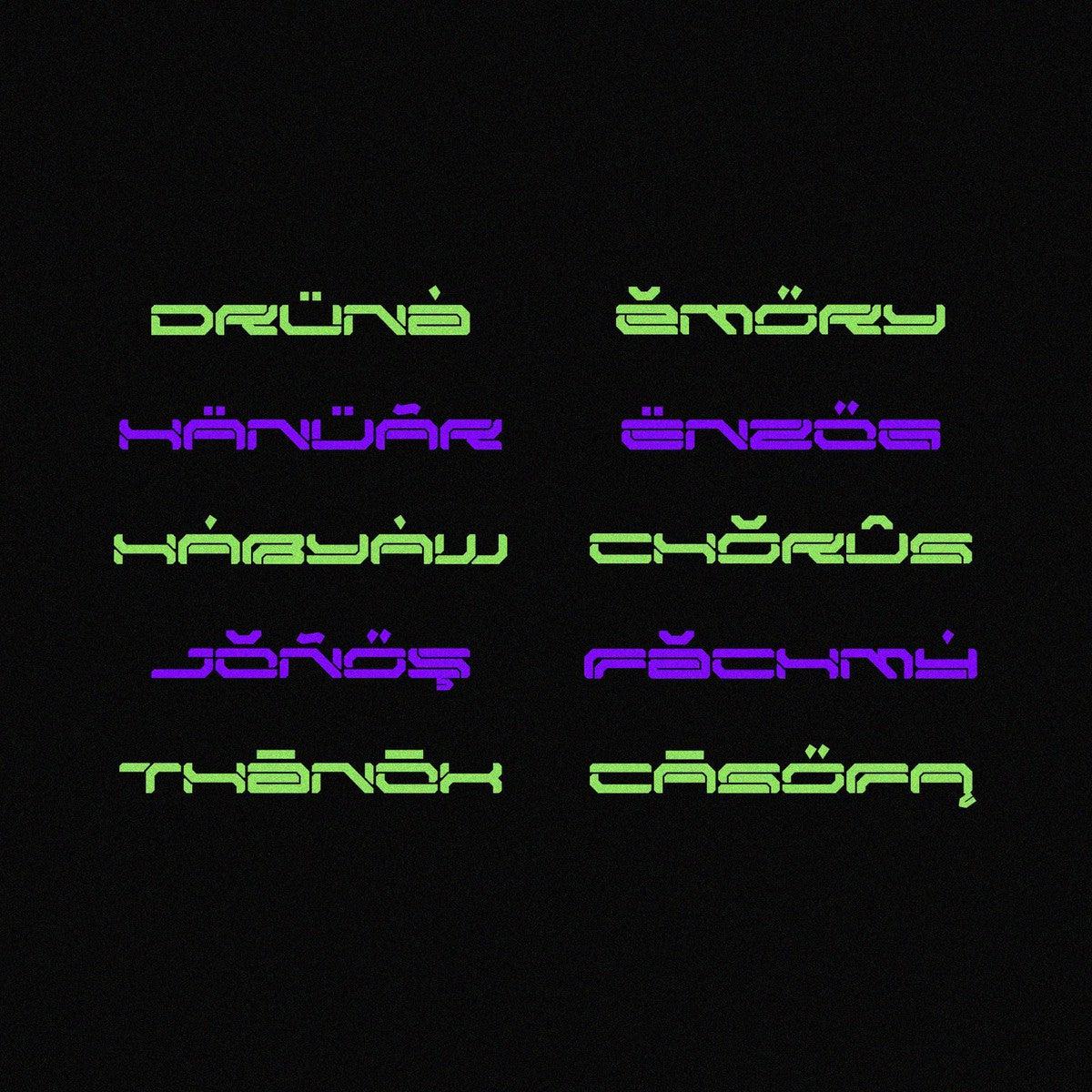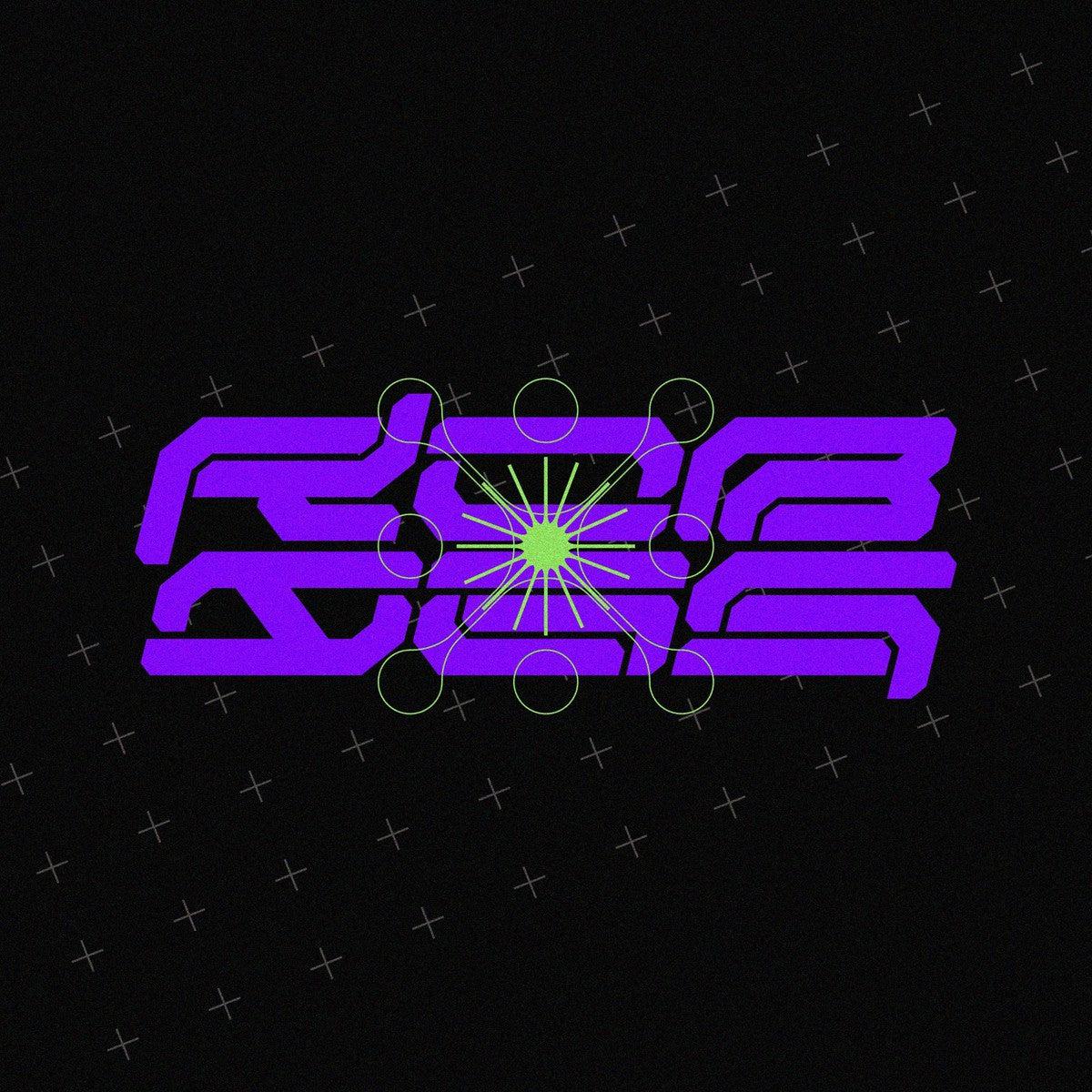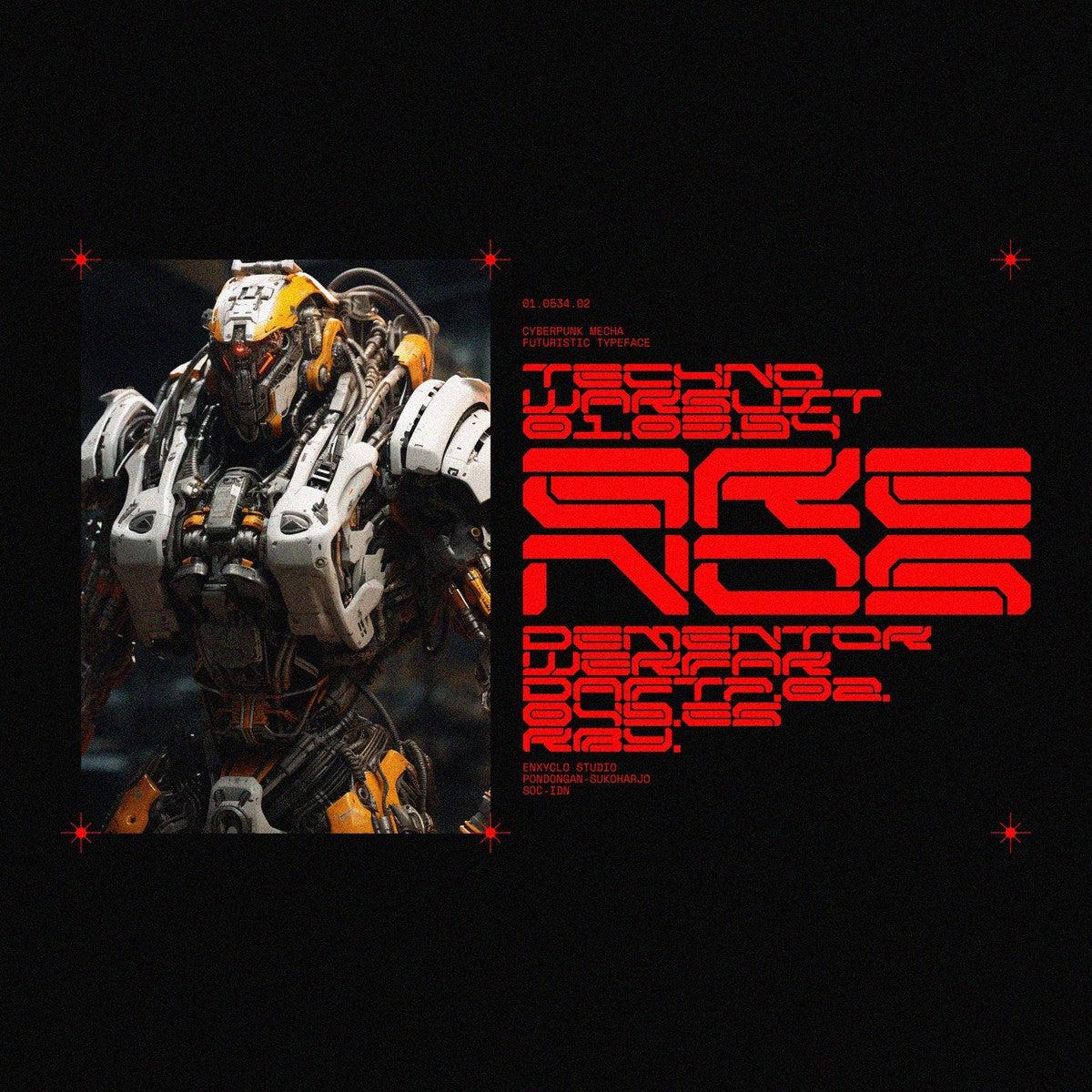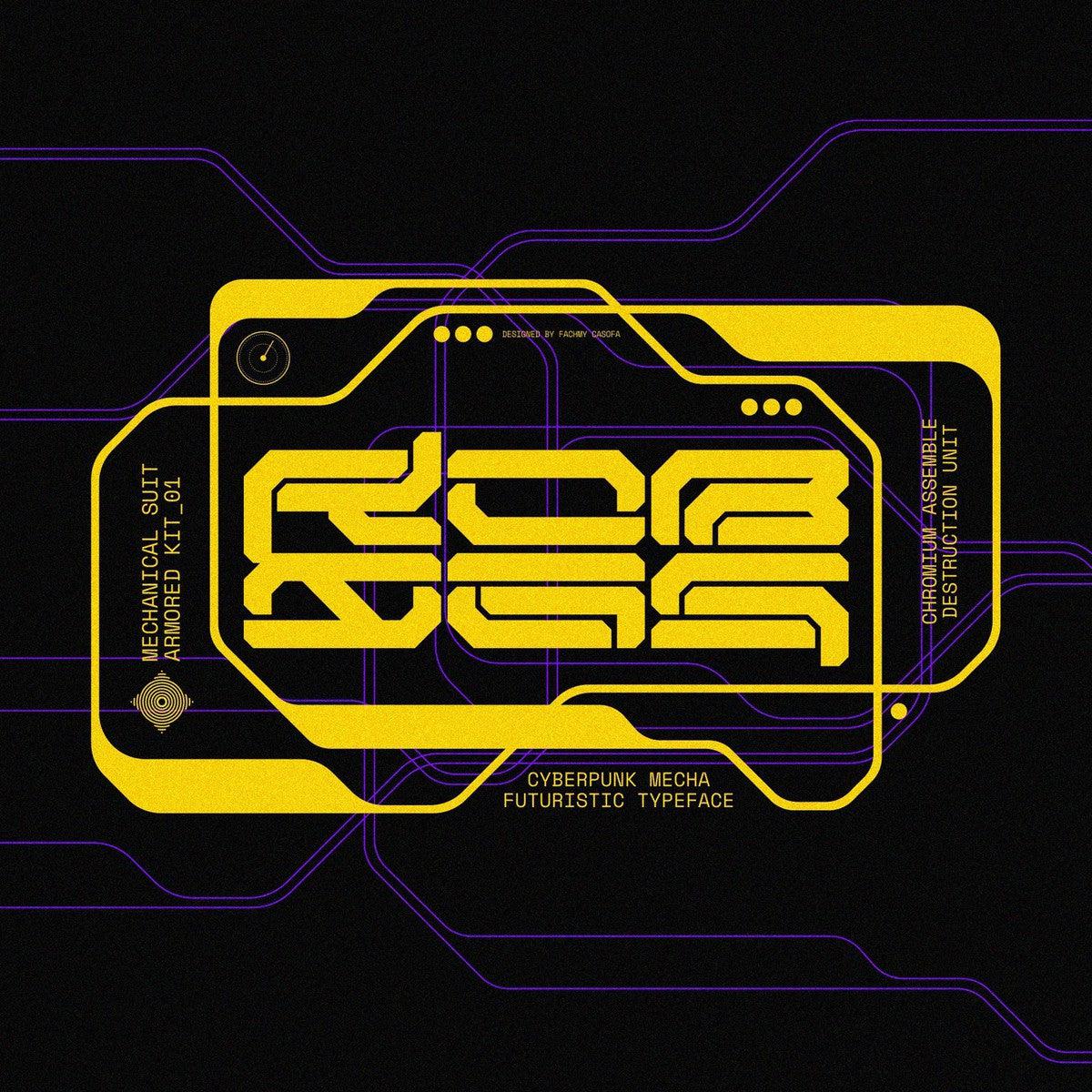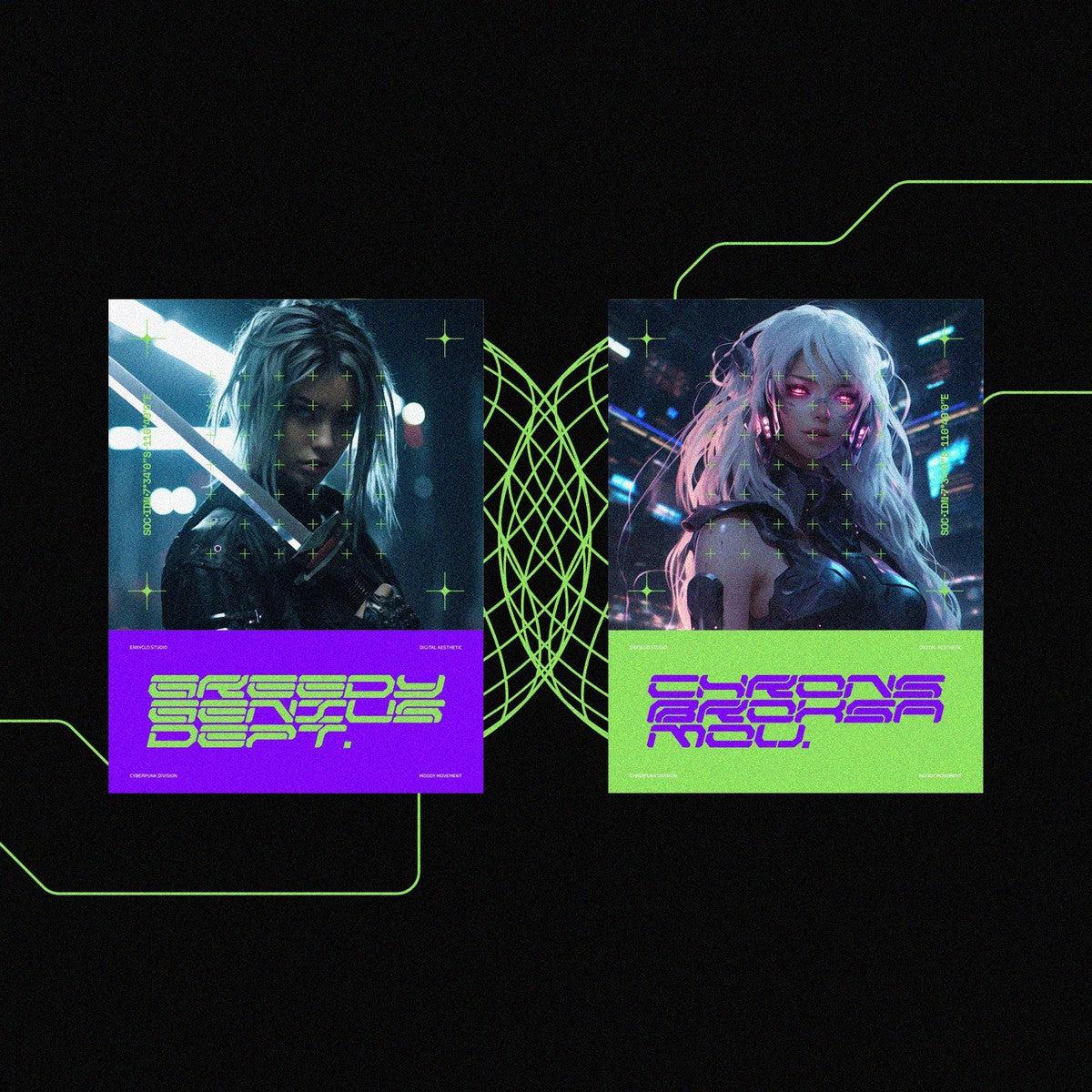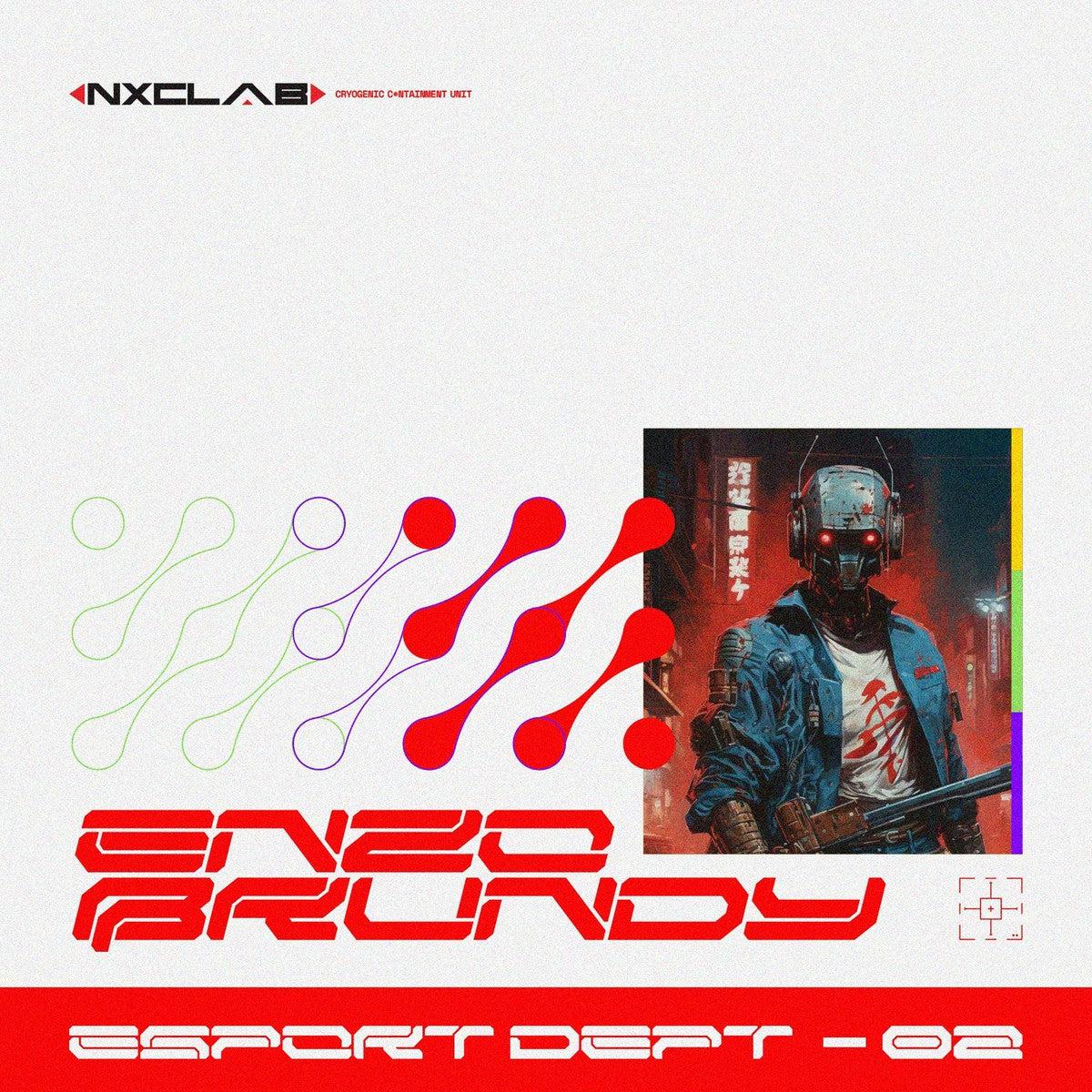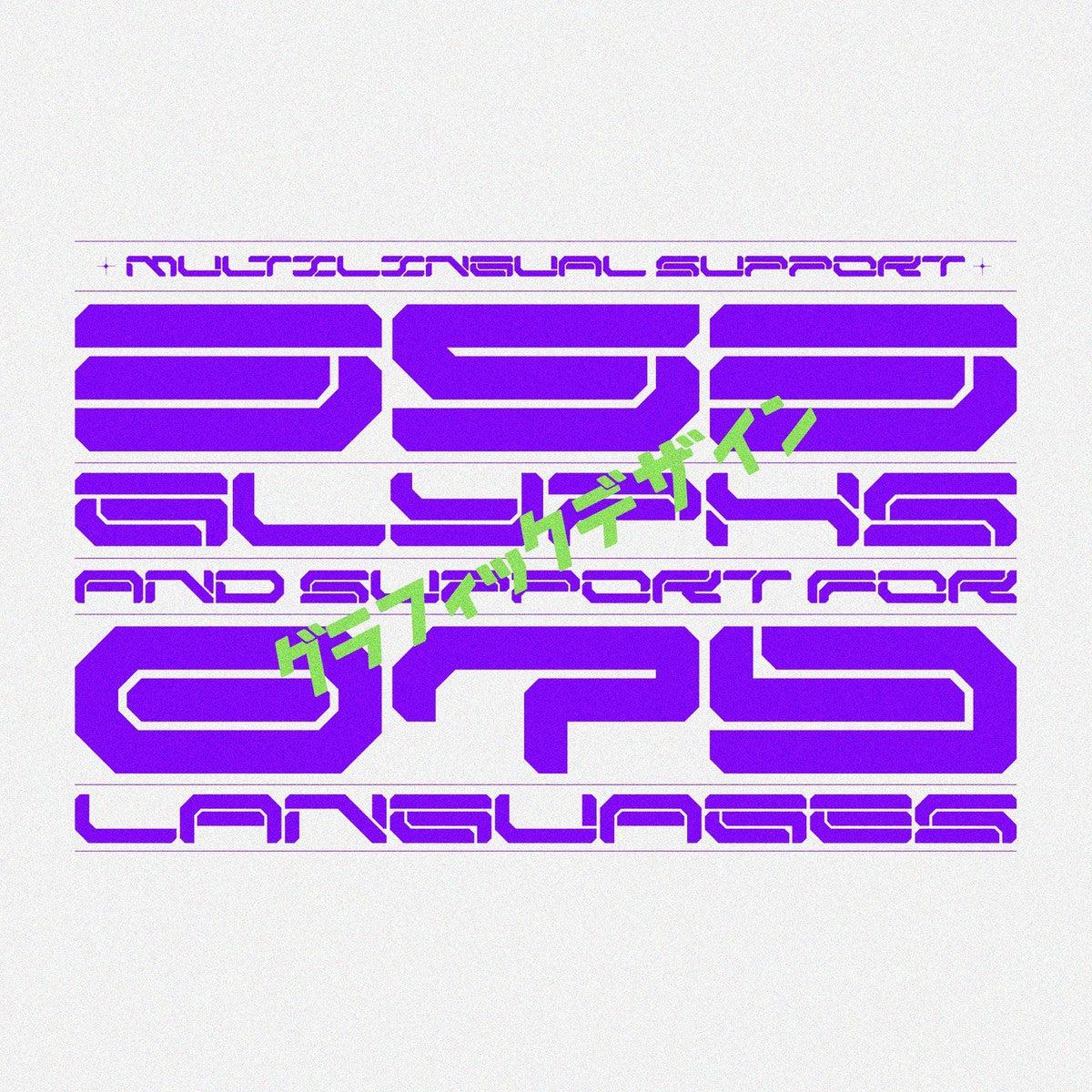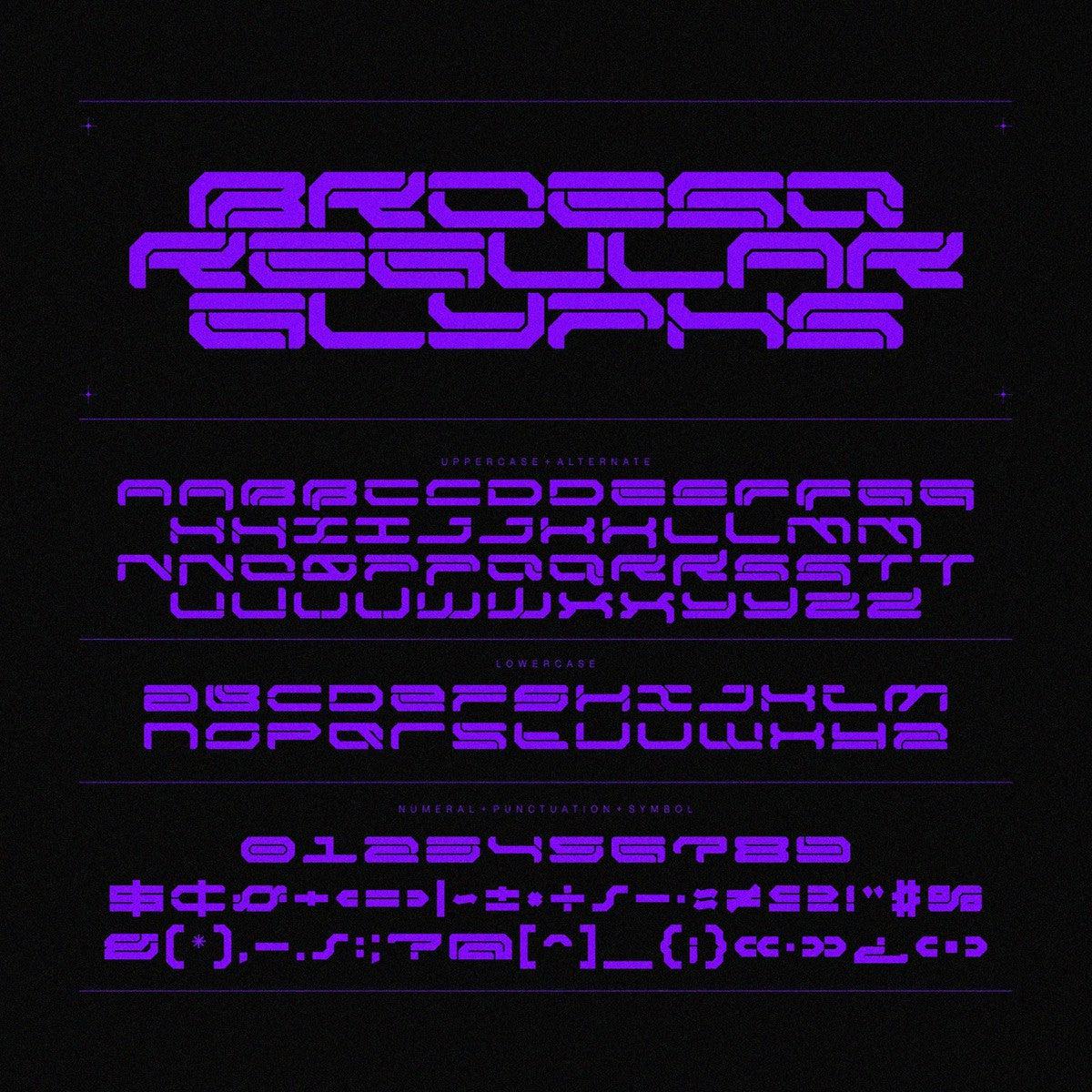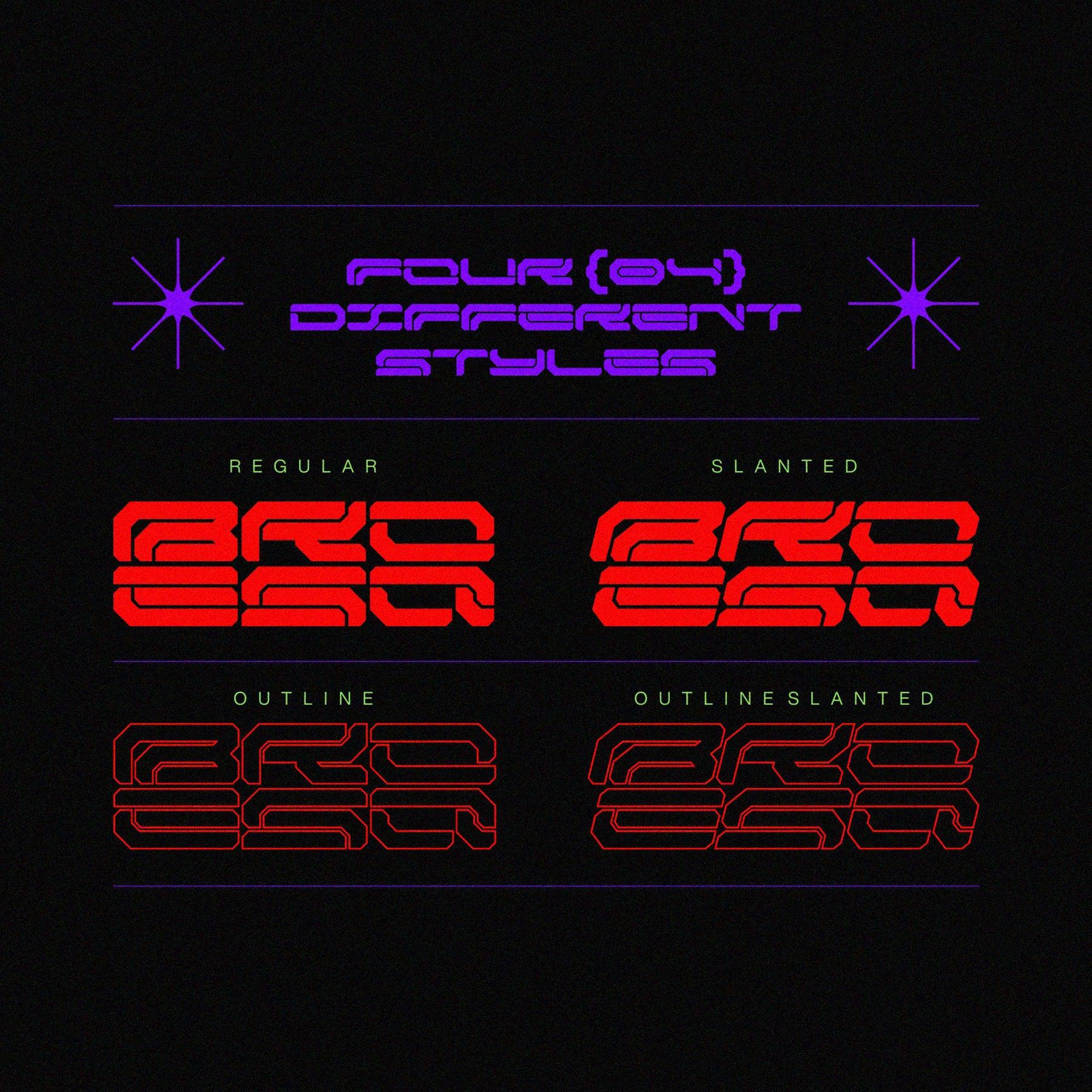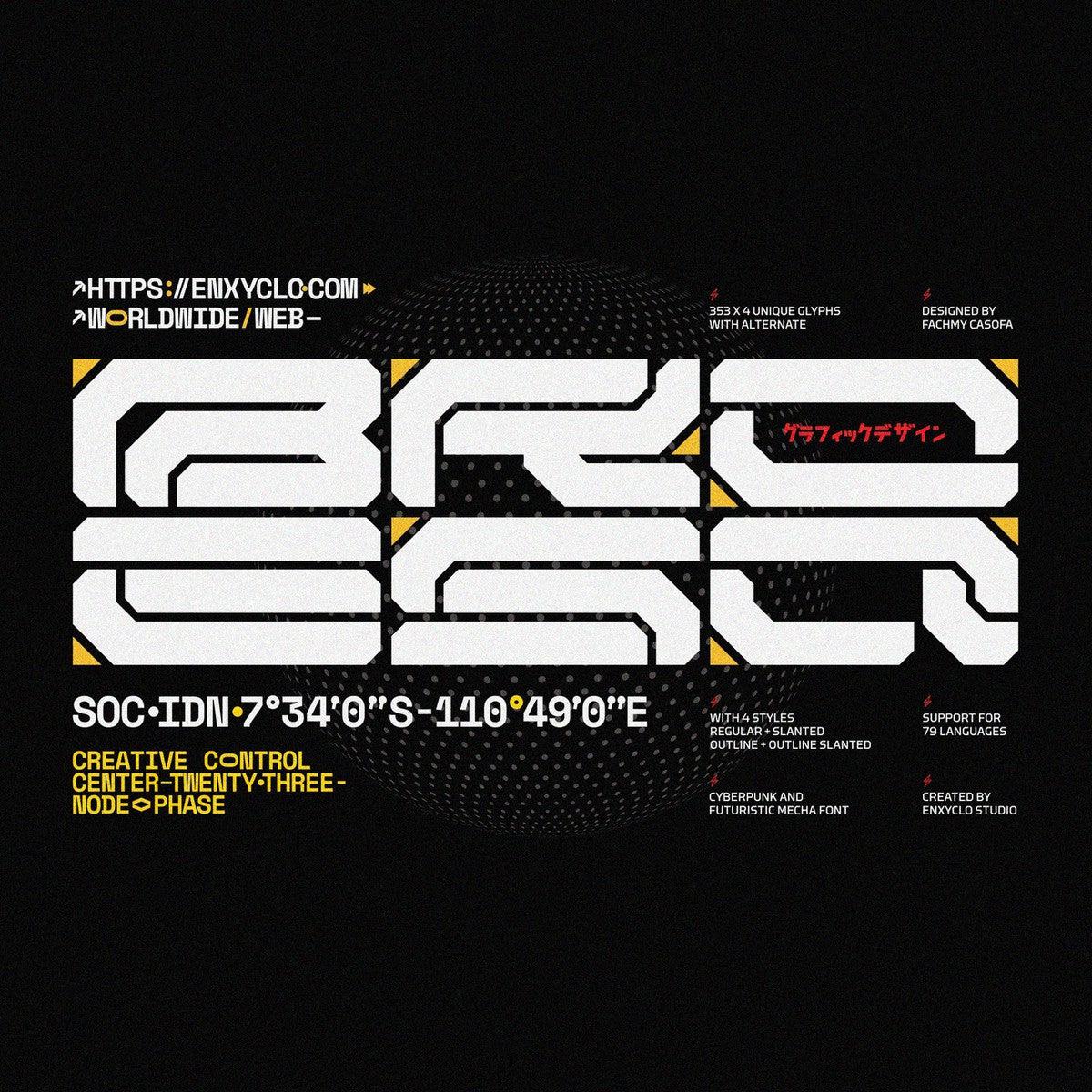
NCL BROESQ - Cyberpunk Futuristic Font
BROESQ
The NCL BROESQ is a cyberpunk futuristic font that features a techno mecha style. It comes in four styles - Regular, Slanted, Outline, and Outline Slanted, and includes 353 glyphs for each style, totaling 1412 glyphs. This font supports uppercase, lowercase, numerals, punctuation, symbols, and 79 languages. It is available in True Type Font (TTF), Open Type Font (OTF), and Web Open Font Format (WOFF1 &
Ideal for futuristic and cyberpunk-themed design projects. Perfect for website headers, posters, branding, and album covers, ensuring a standout aesthetic that captures attention and enhances creativity.